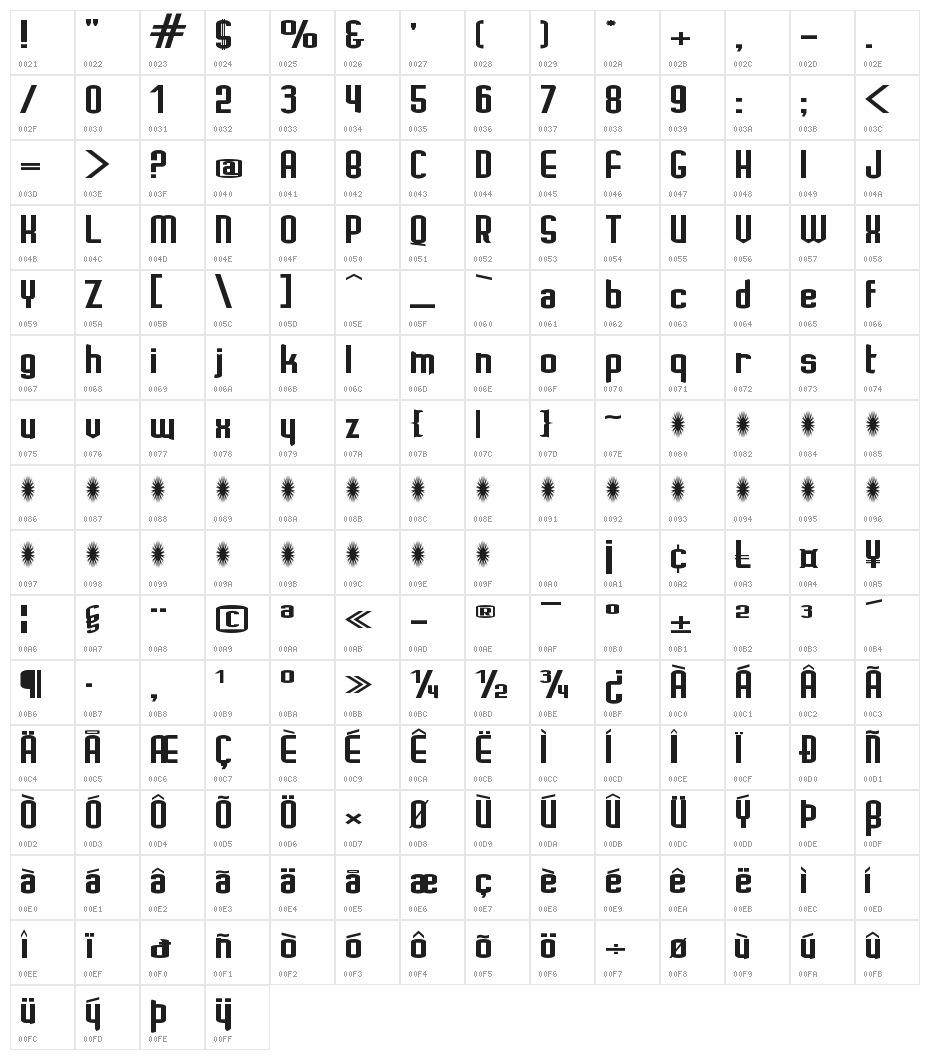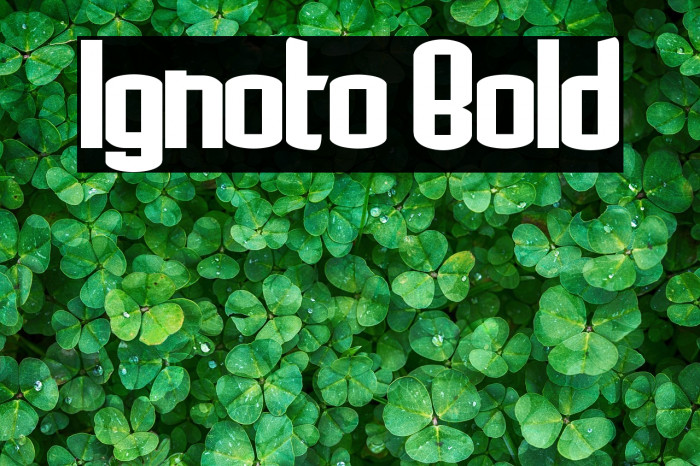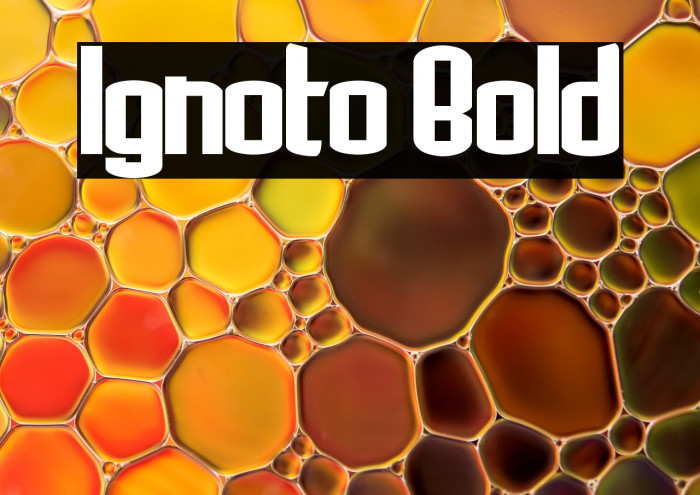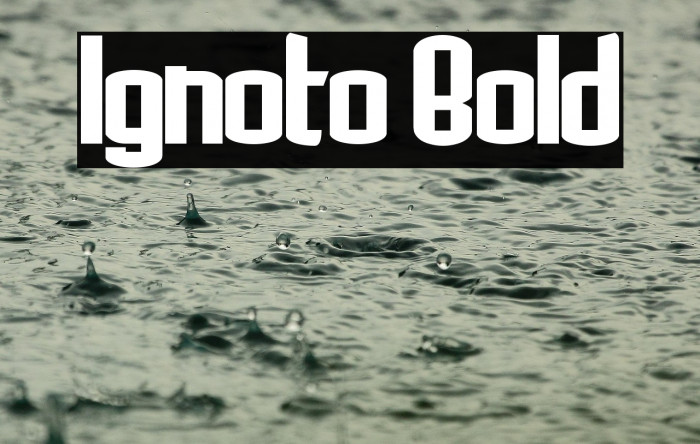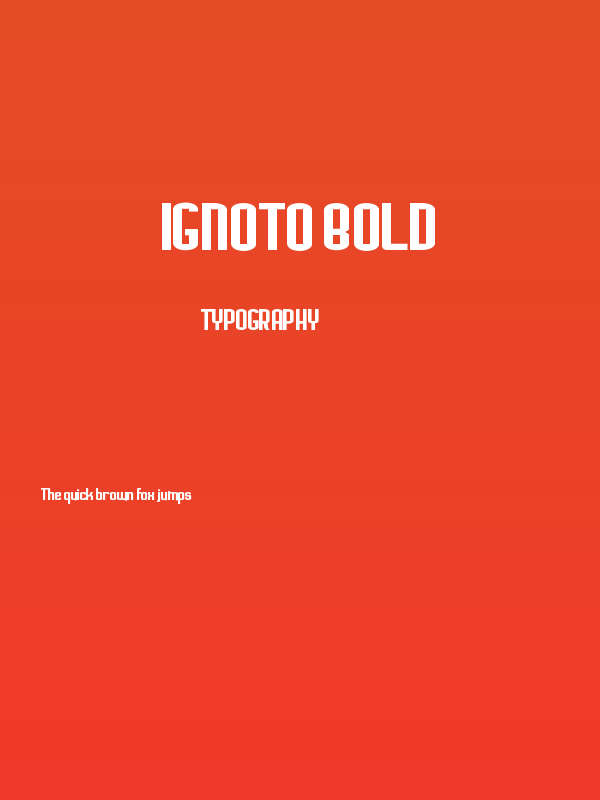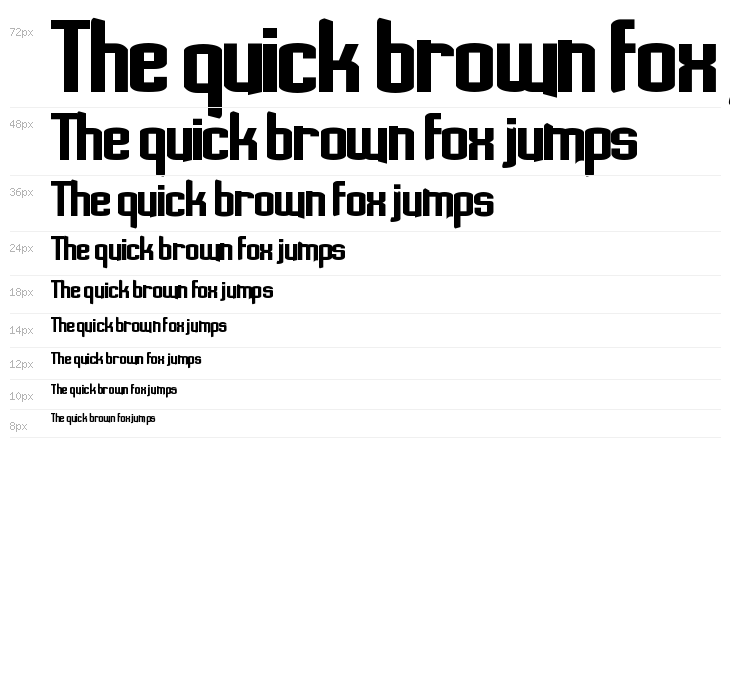
Ignoto Bold Font
Ignoto Bold Description
This font exhibits a bold and striking presence with its thick, uniform strokes and geometric design. The uppercase letters are tall and imposing, while the lowercase letters maintain a consistent width, contributing to a cohesive look. The numerals are equally bold, ensuring visibility and clarity. Special characters are designed with the same boldness, making them stand out. The overall appearance is modern and assertive, suitable for making a strong visual impact. Its structured form and bold weight make it ideal for attention-grabbing designs.